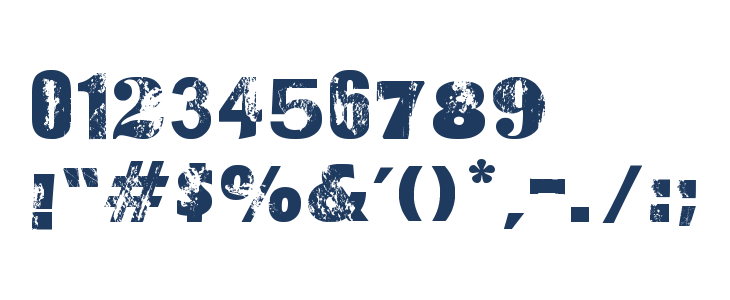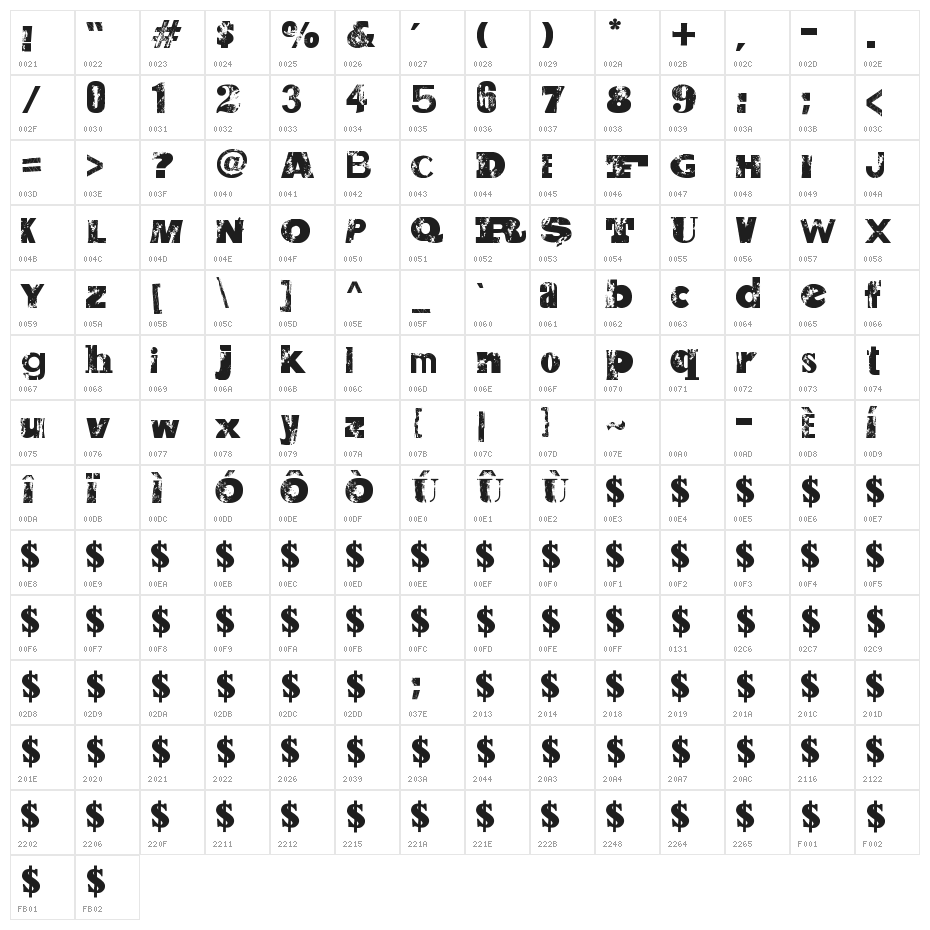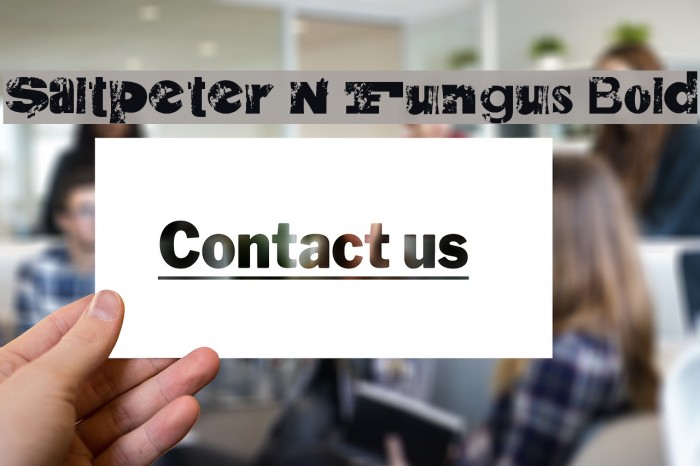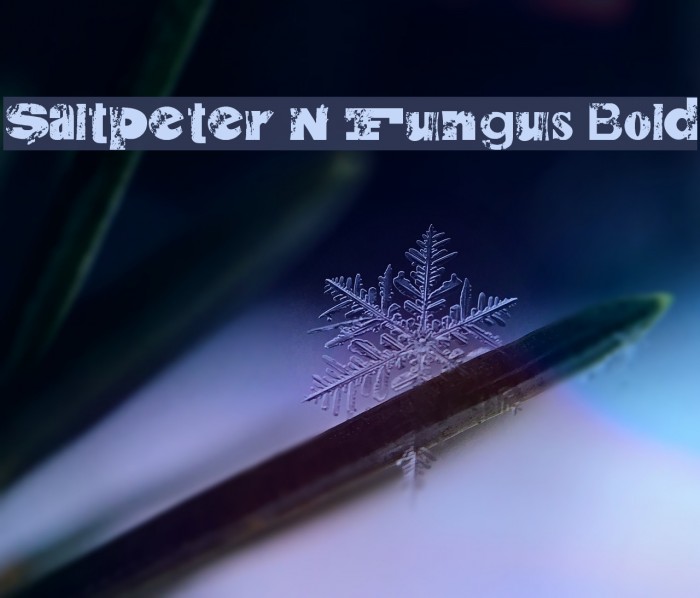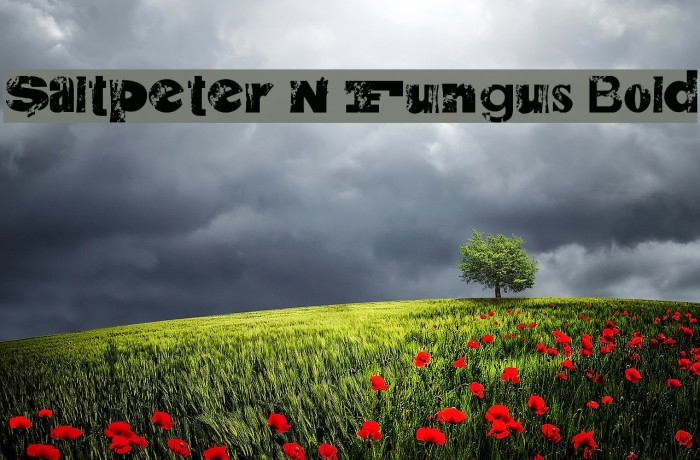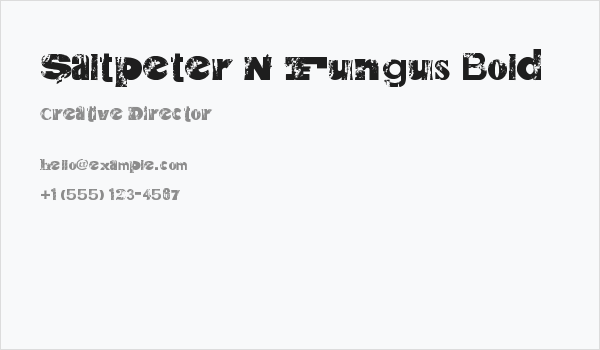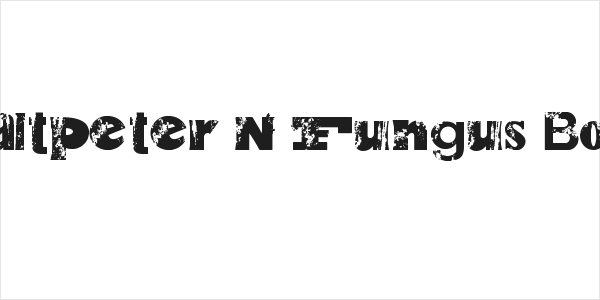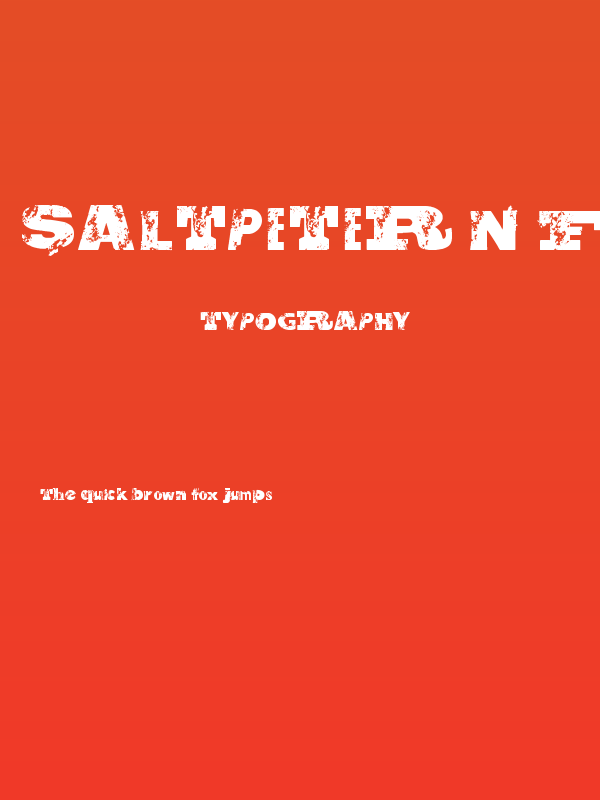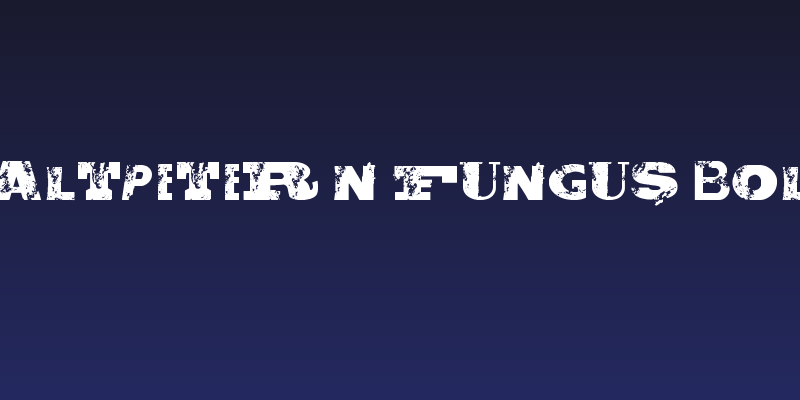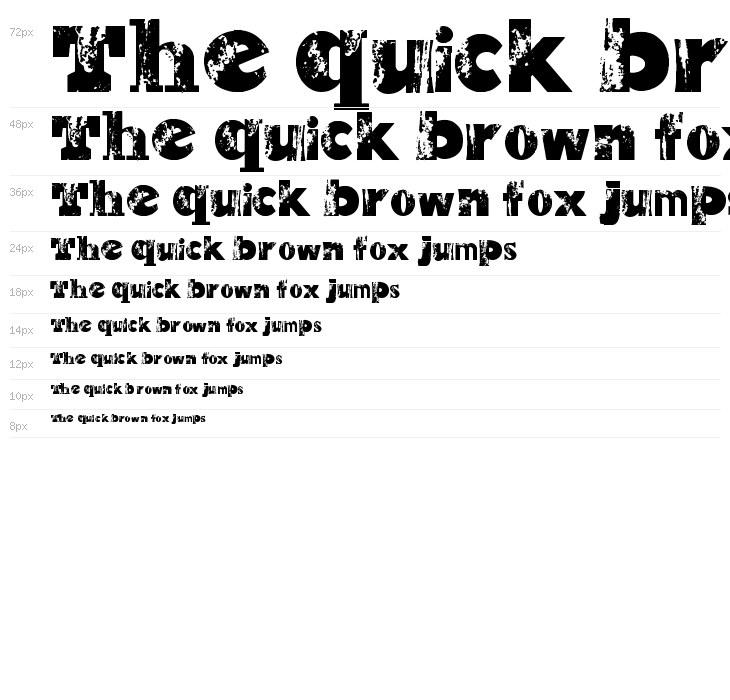
Saltpeter N Fungus Bold Font
Saltpeter N Fungus Bold Description
This font features a bold, distressed style with a grunge texture that gives it a rugged, worn appearance. The characters are heavily textured, creating a sense of depth and movement. The uppercase and lowercase letters maintain a consistent weight, with rounded edges that soften the overall look. The numbers and special characters follow the same distressed pattern, ensuring uniformity across all glyphs. This font's unique style makes it stand out, ideal for projects that require a bold statement or an edgy, urban feel.
| Proposed Projects | Ideal for album covers, posters, streetwear branding, and urban-themed designs. |